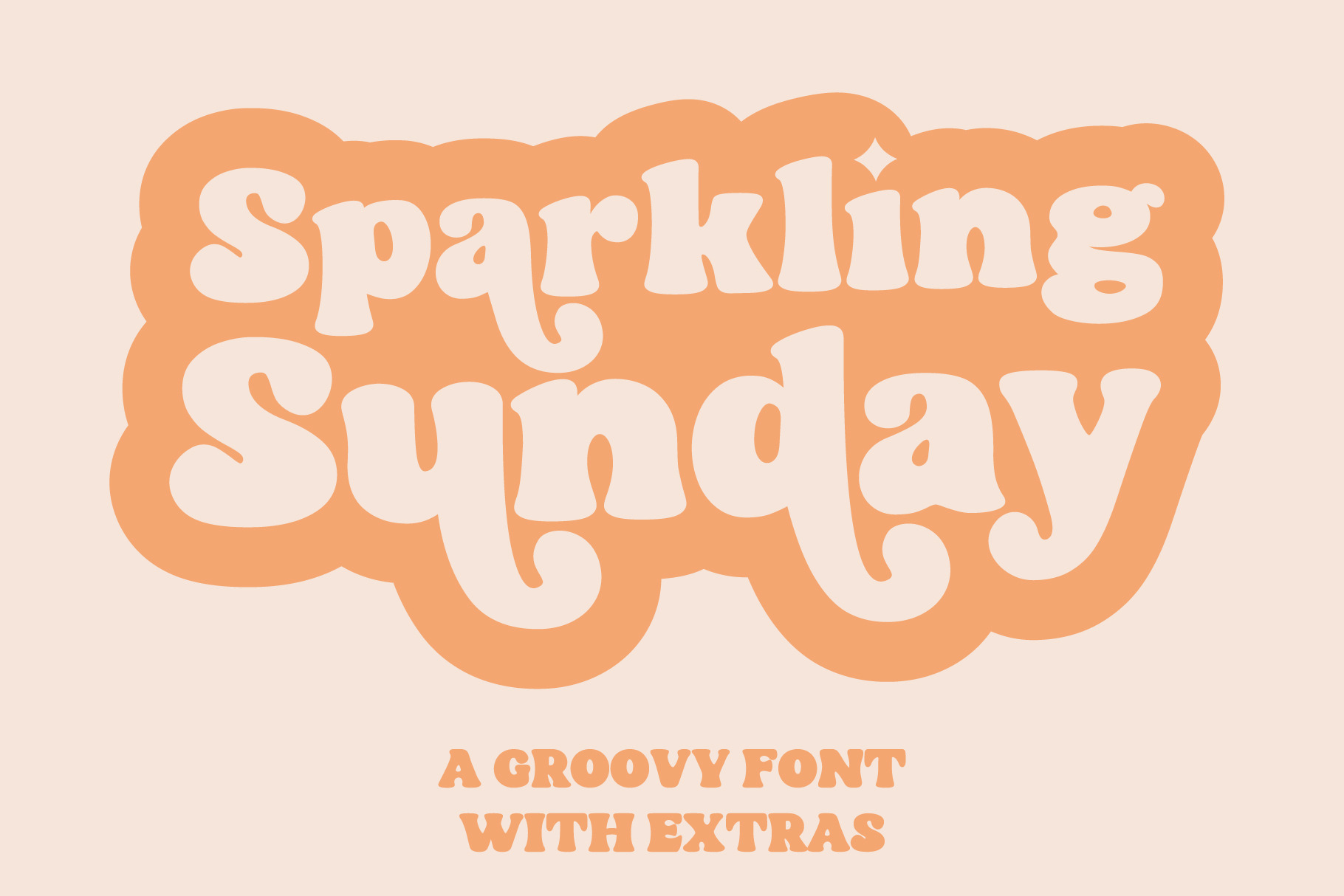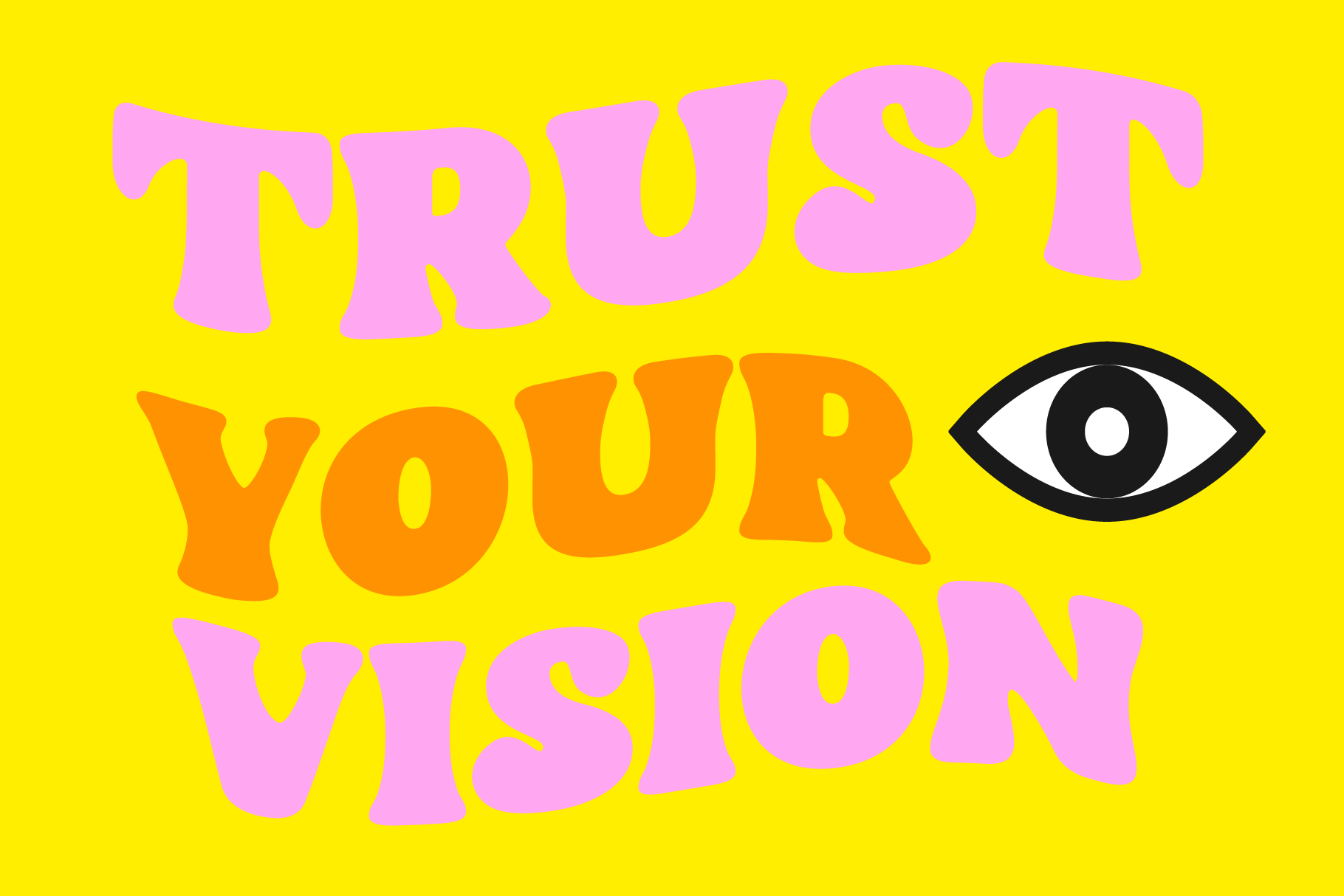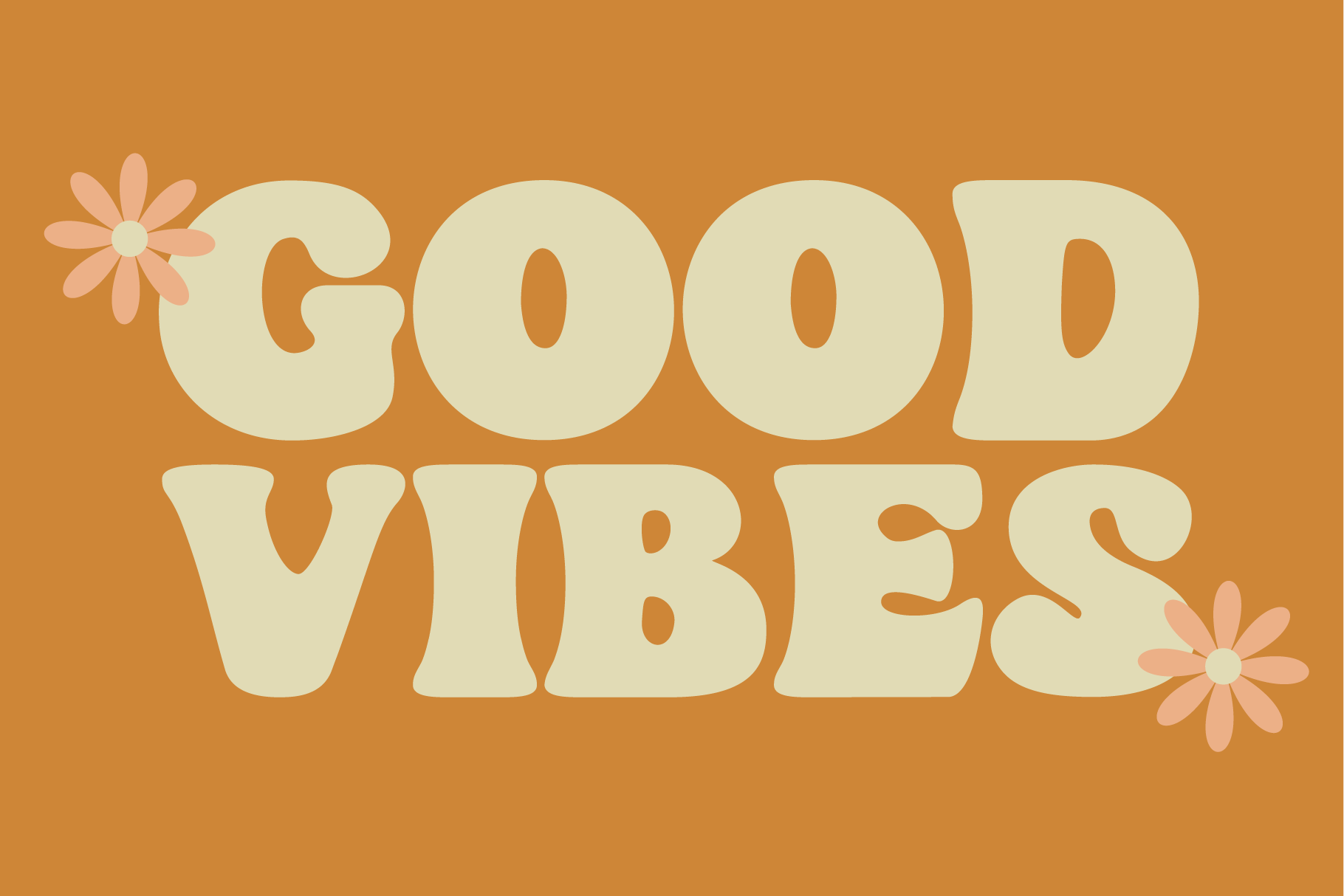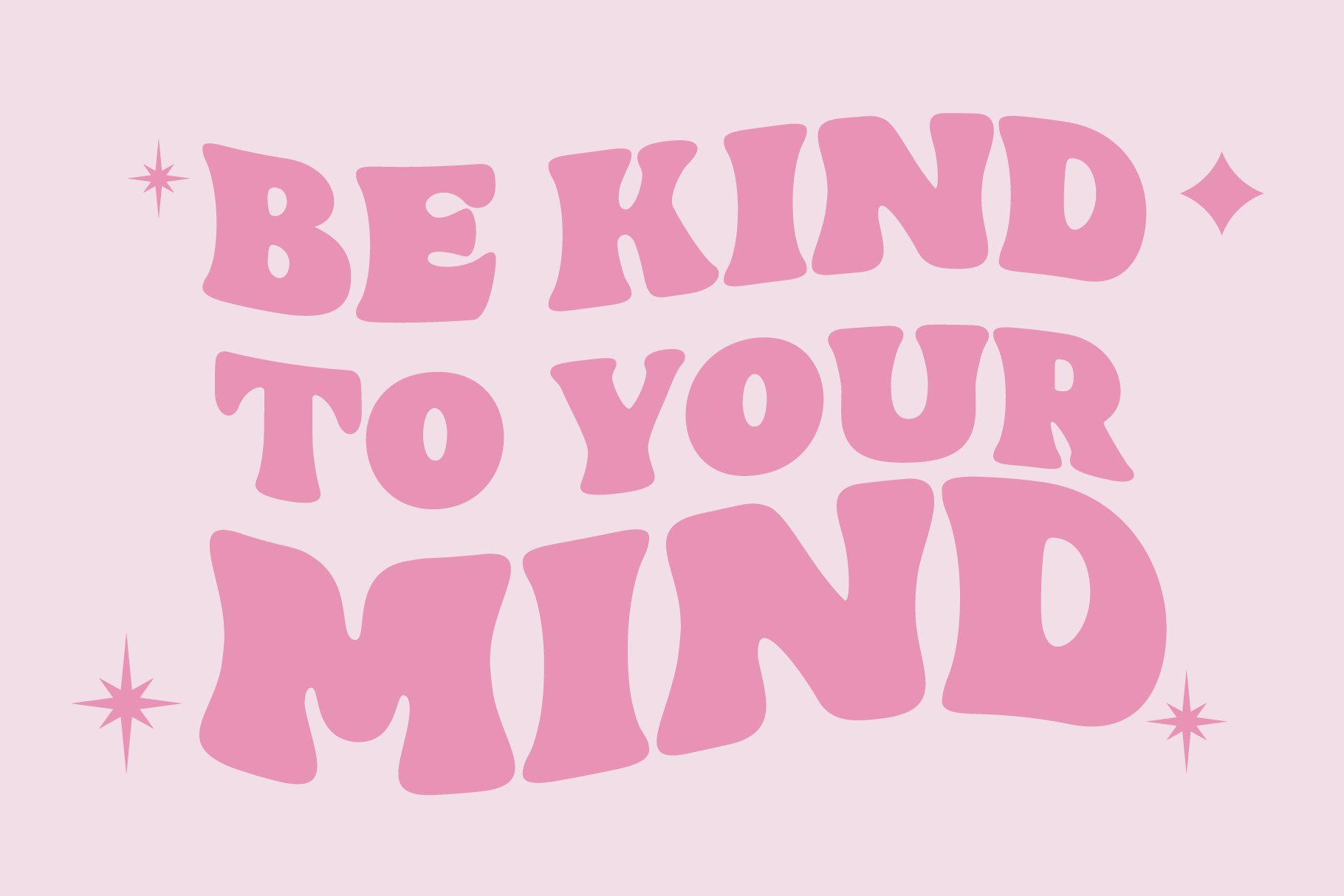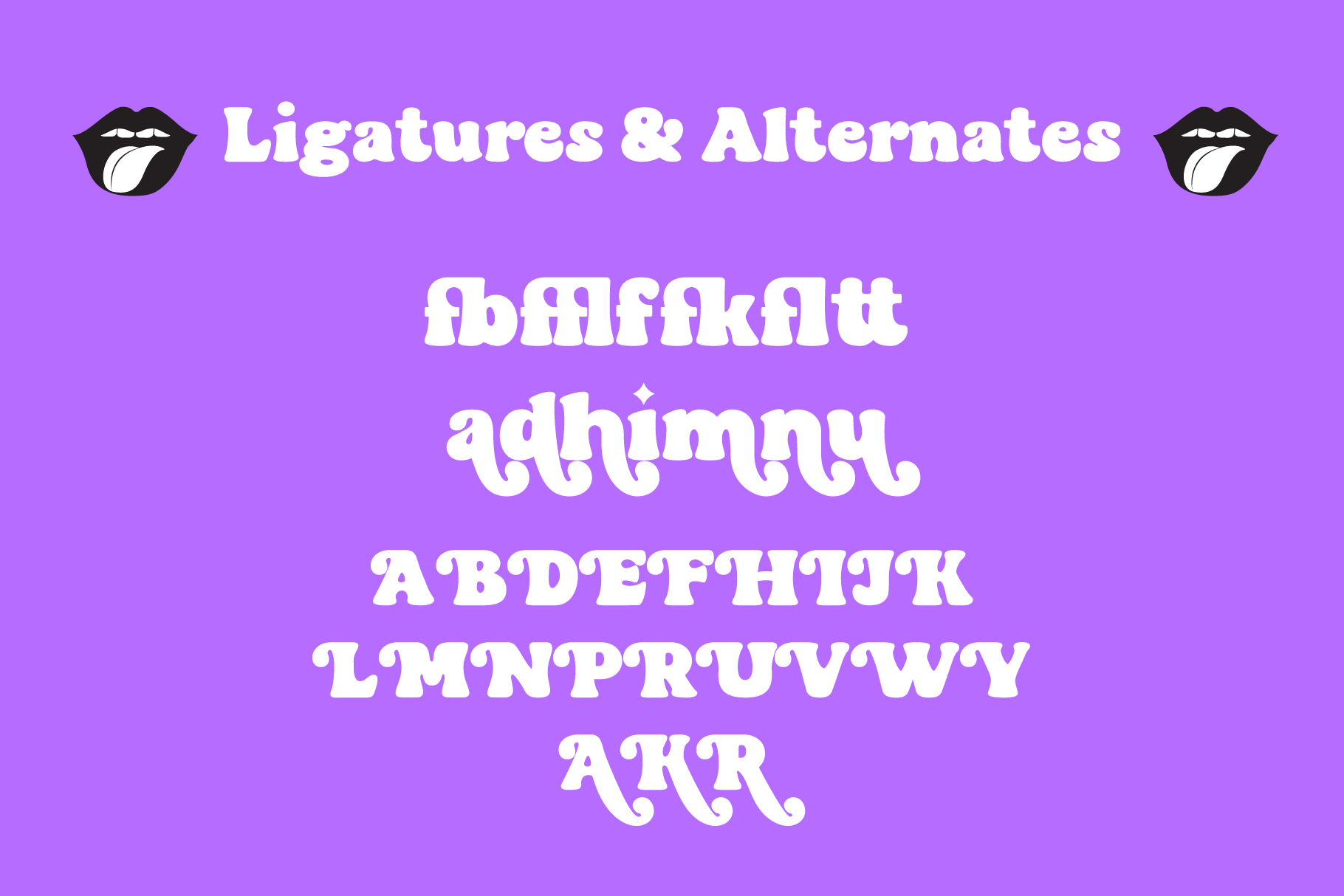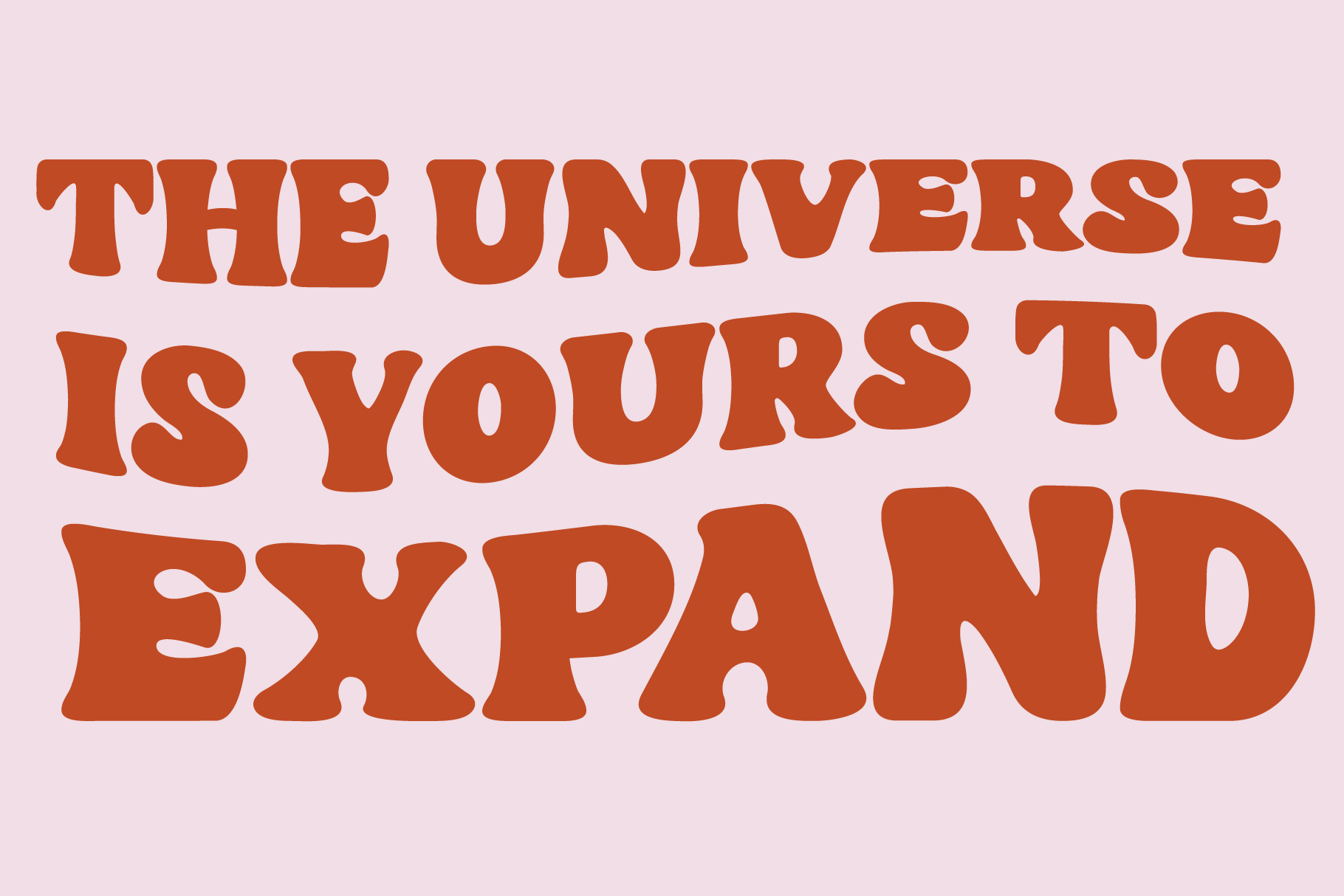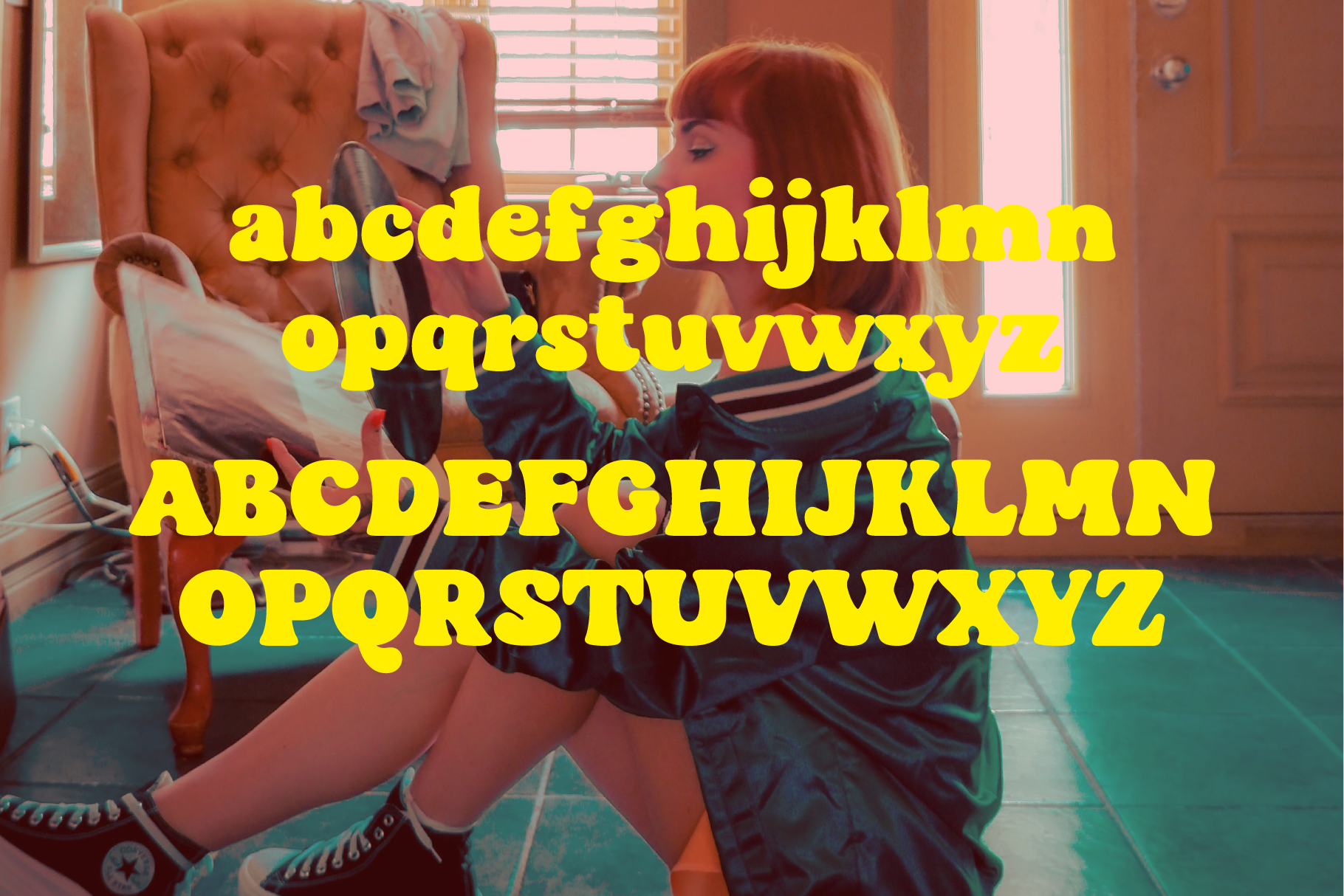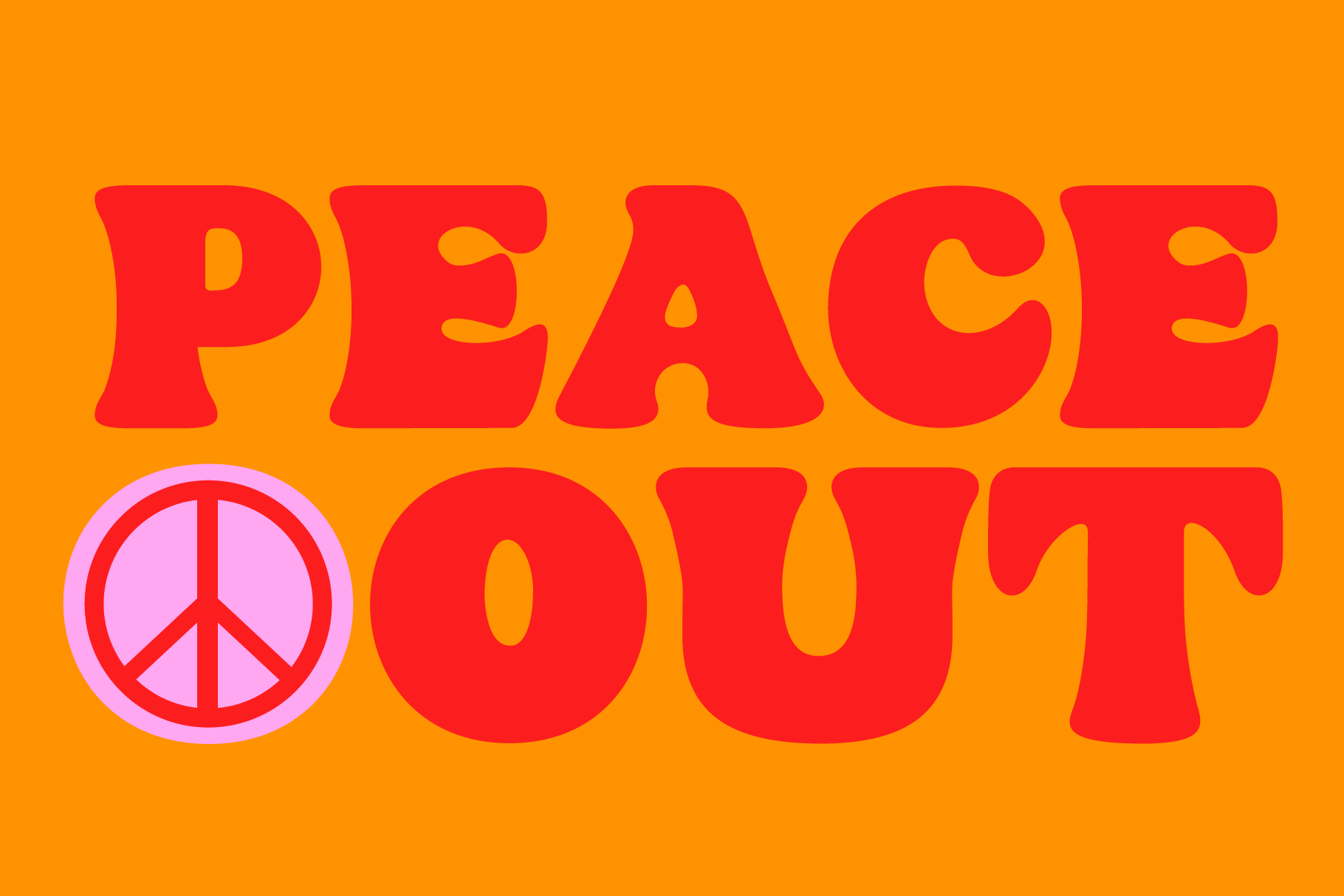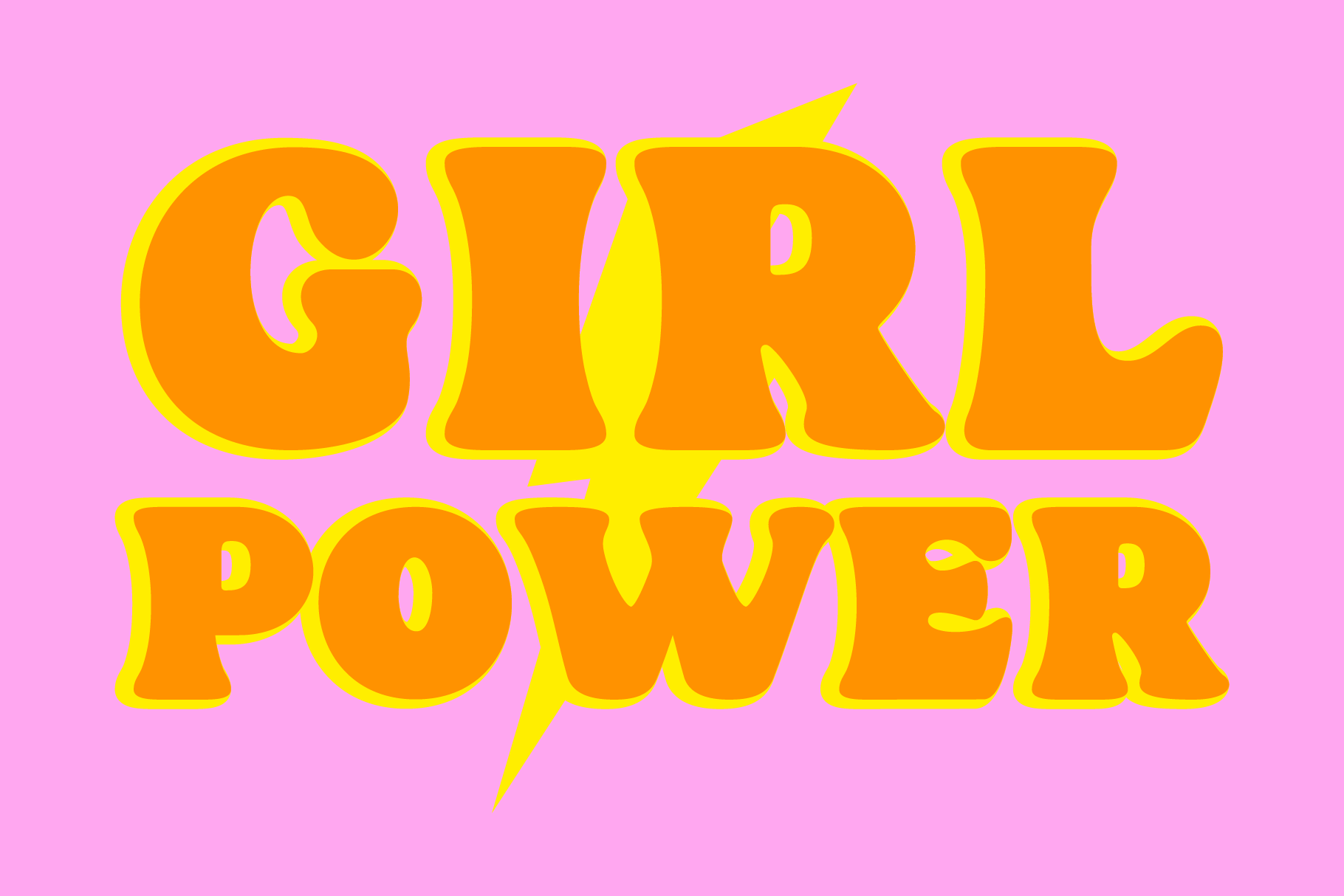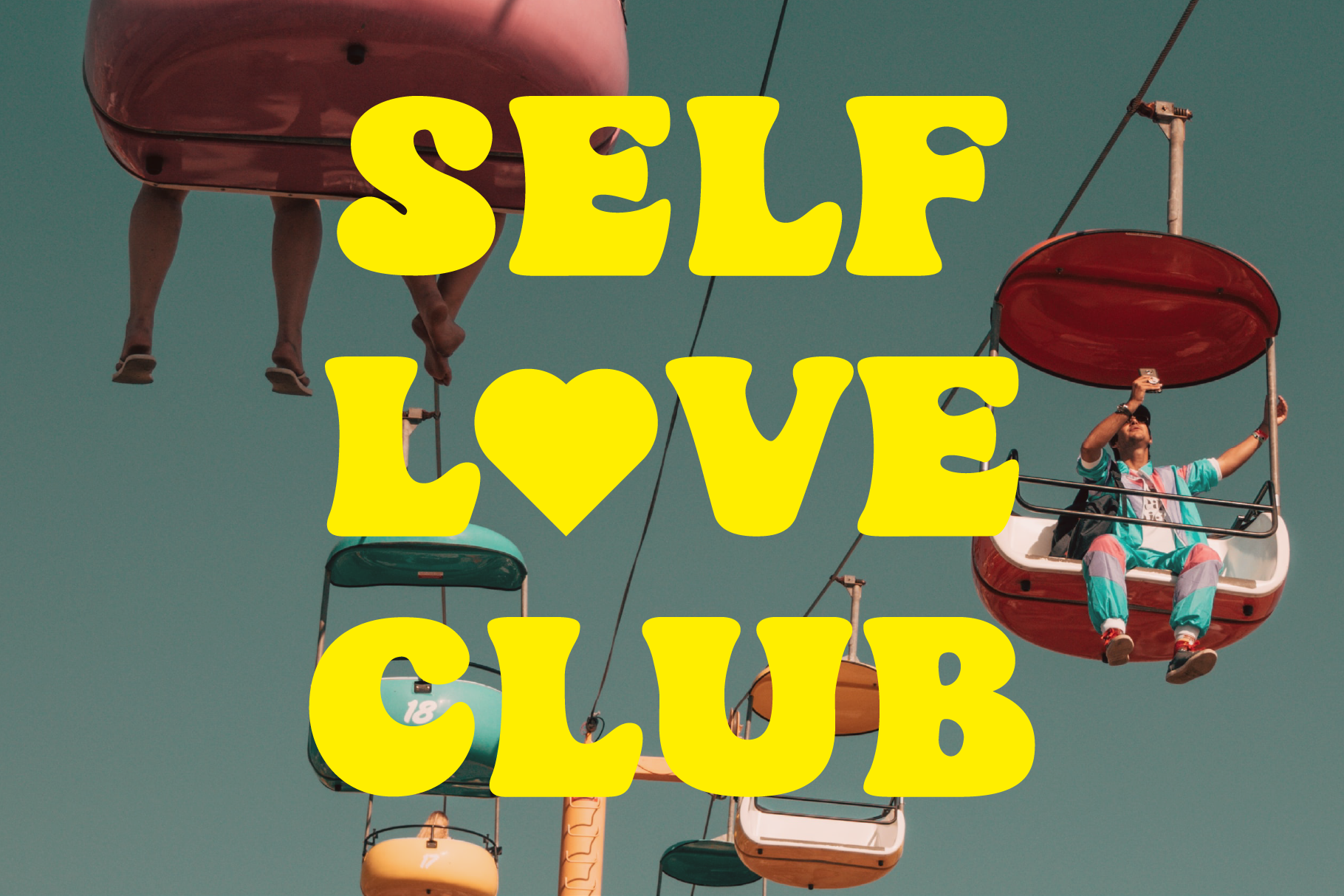
Introducing the newest addition to your font collection — Sparkling Sunday! This font is the perfect combination of vintage and modern, with bold and chunky letters that are sure to make a statement. The font is inspired by the 80s and 90s era, with a touch of modern typography. Each letter is carefully crafted with attention to detail, giving it a unique and eye-catching look. The font is perfect for posters, flyers, logos, and any design that needs a retro touch. It comes in a regular style and an extra including 26 retro graphics to allow versatility in your designs. Simply install the file as a separate and you will get to type them using the alphabets A-to-Z to access them. Get ready to take your designs to the next level with this cute Sparkling Sunday. Included in this set: - Sparkling Sunday Regular (OTF-TTF-WOFF 1/2 File Types) - Sparkling Sunday Extras (OTF-TTF) - Supported Languages: Bosnian, Catalan, Czech, Danish, German, English, Spanish, Estonian, Finnish, French, Irish, Croatian, Hungarian, Icelandic, Italian, Lithuanian, Latvian, Maltese, Dutch, Norwegian, Polish, Portuguese, Romanian, Slovak, Slovenian, Albanian, Swedish, Turkish | Sparkling Sunday A Groovy Font | Prestige Artsy Studio